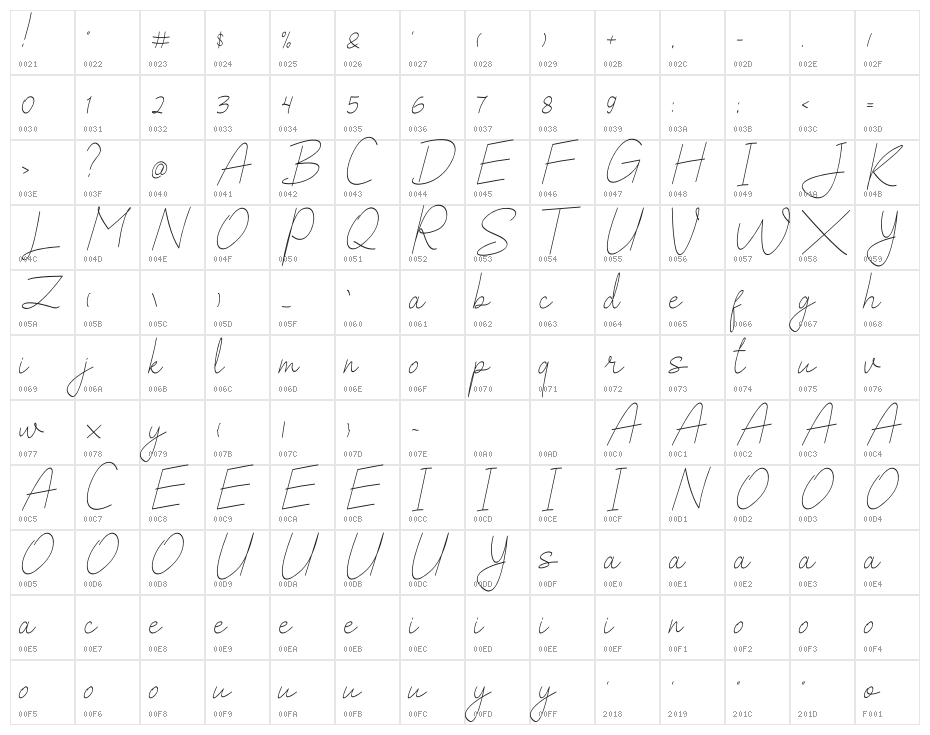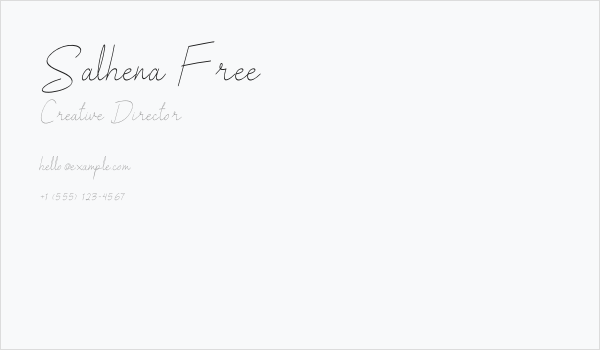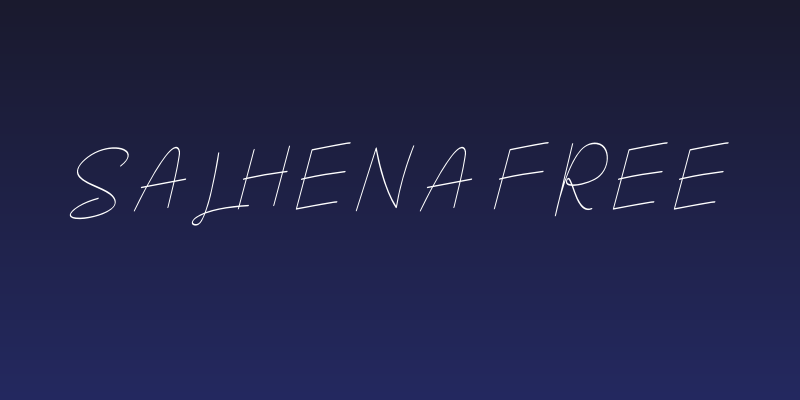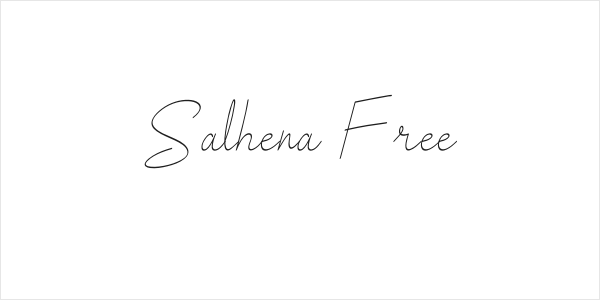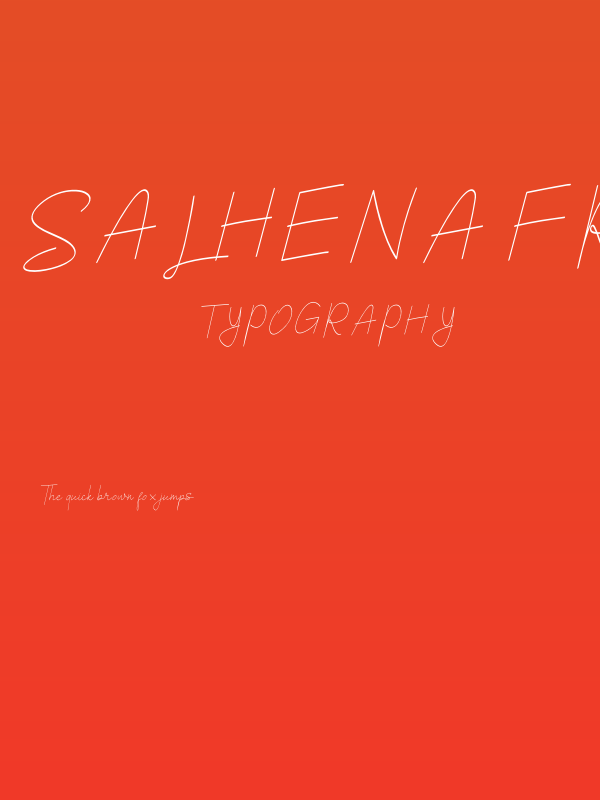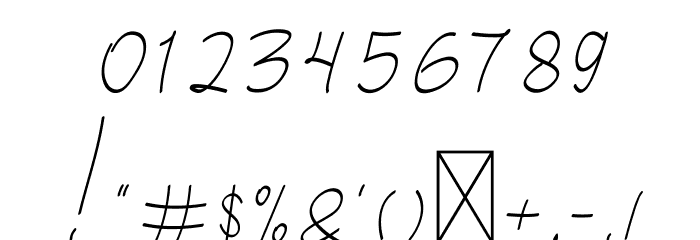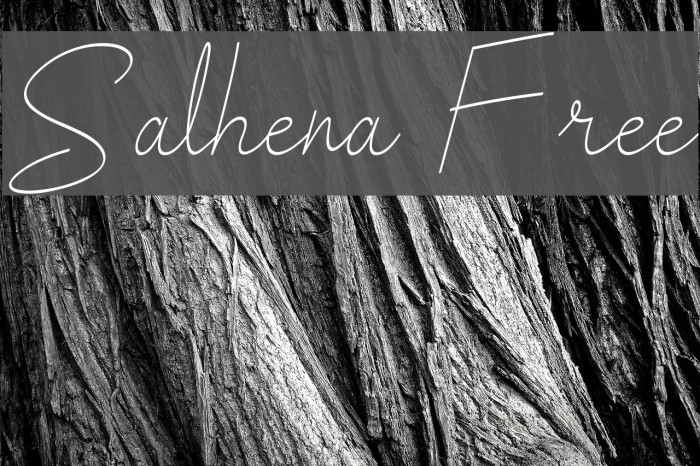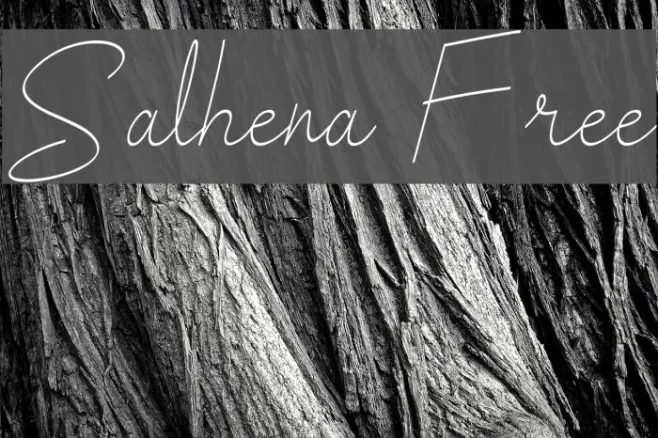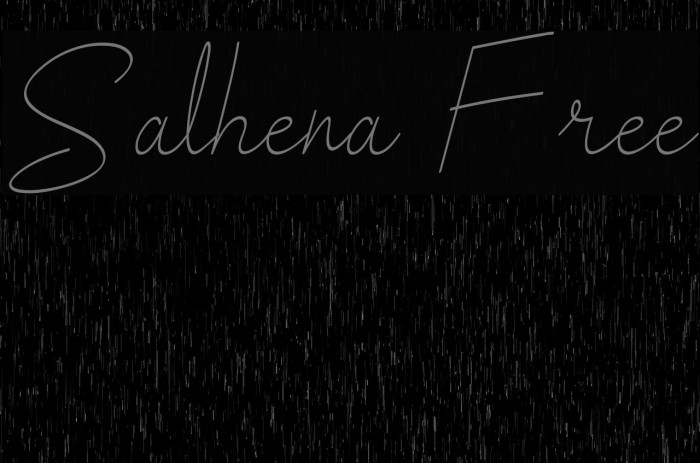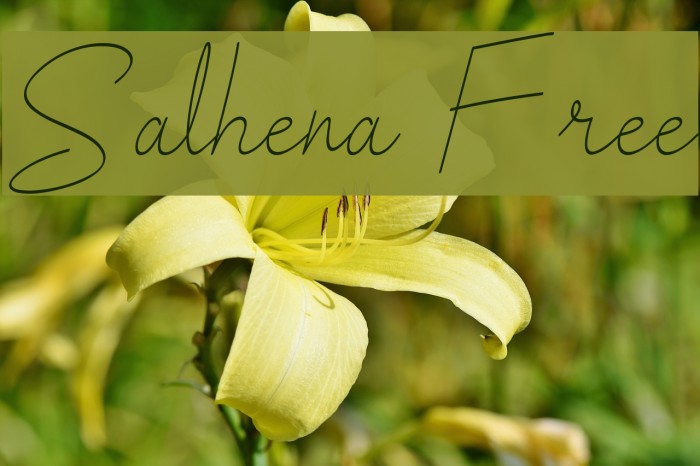
Salhena Free Font
Salhena Free Description
This font features a delicate and elegant script style, characterized by its fluid and continuous strokes that mimic natural handwriting. The uppercase letters are slightly more structured, maintaining a consistent slant and height, while the lowercase letters exhibit a more free-flowing and cursive nature. The numerals and special characters complement the alphabet with a similar handwritten aesthetic, adding to the overall cohesive look. The font's thin lines and graceful curves make it ideal for projects that require a personal and sophisticated touch.
SALHENA-FREE UPPERCASE
SALHENA-FREE LOWERCASE
SALHENA-FREE OTHER CHARS
| Use Case | Logos, Invitations, Personal notes |
| Proposed Projects | Ideal for wedding invitations, personal branding, greeting cards, and elegant stationery. |